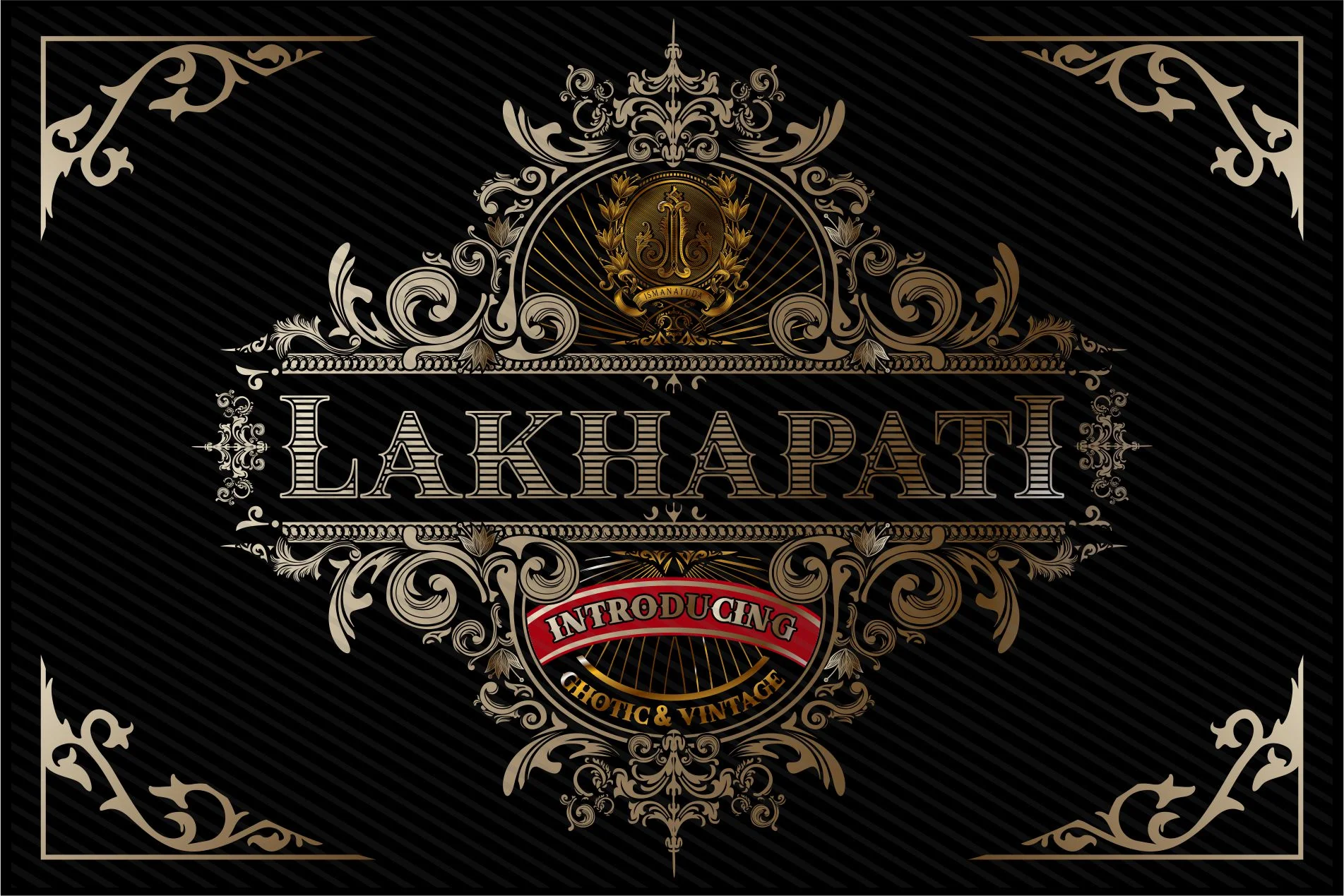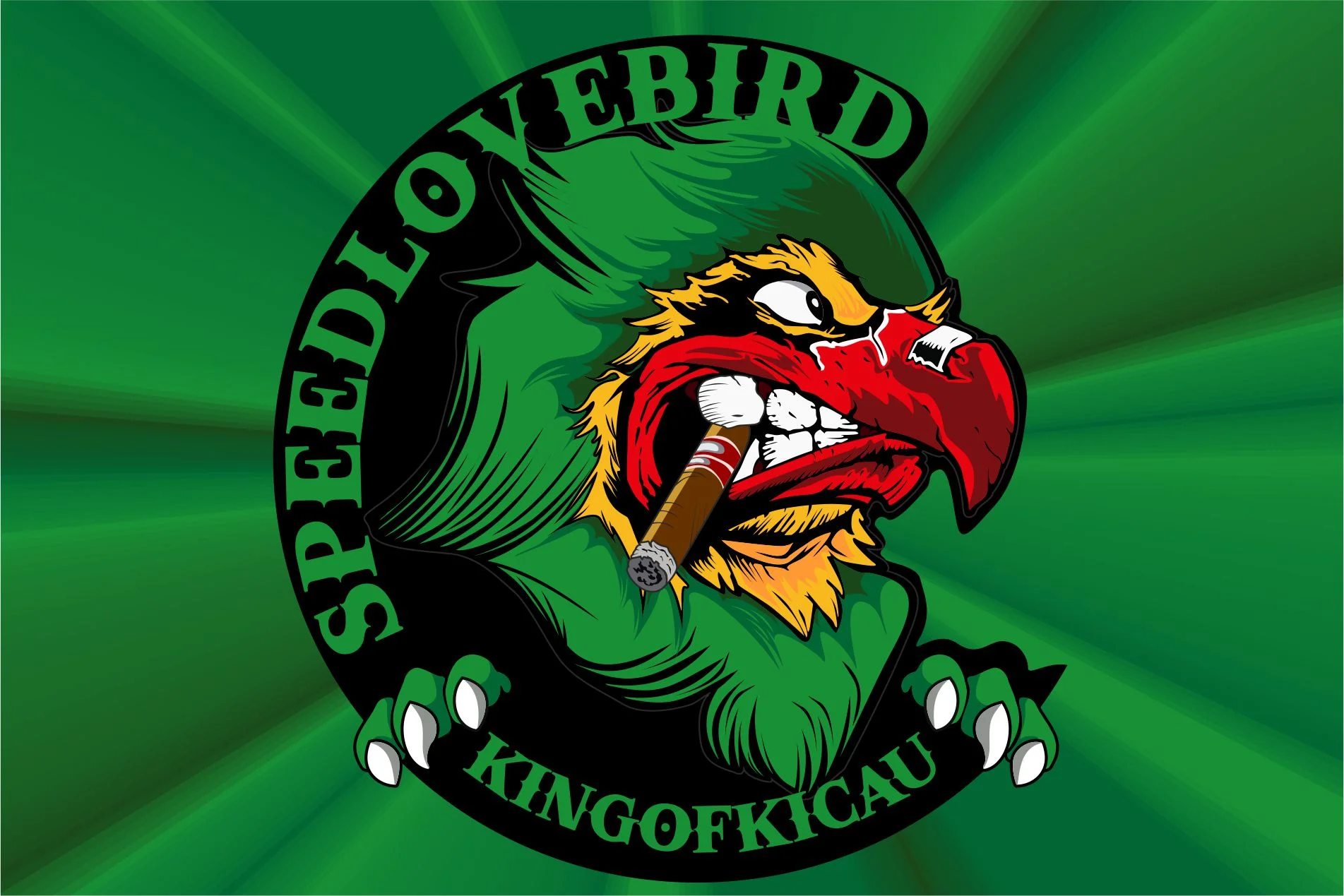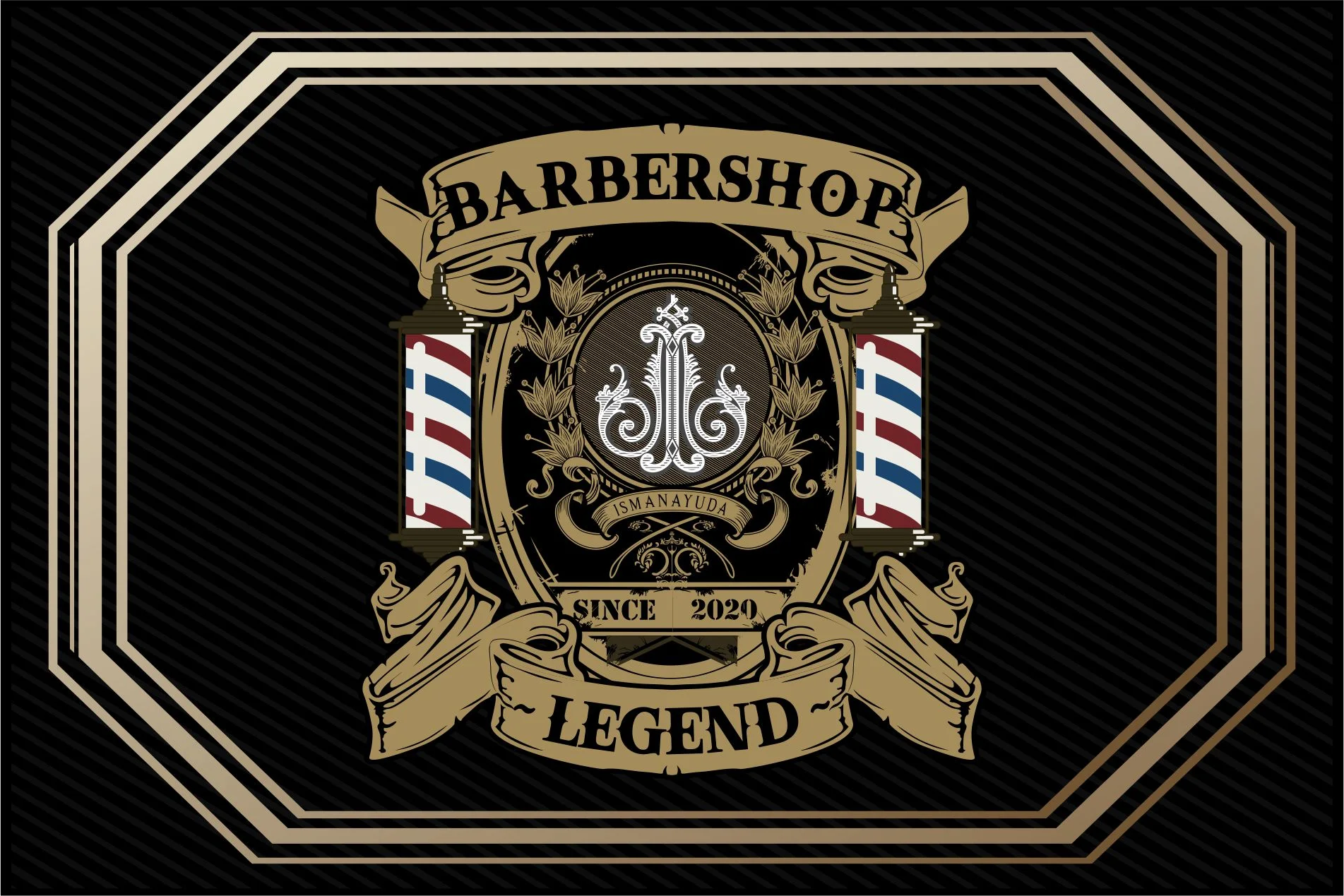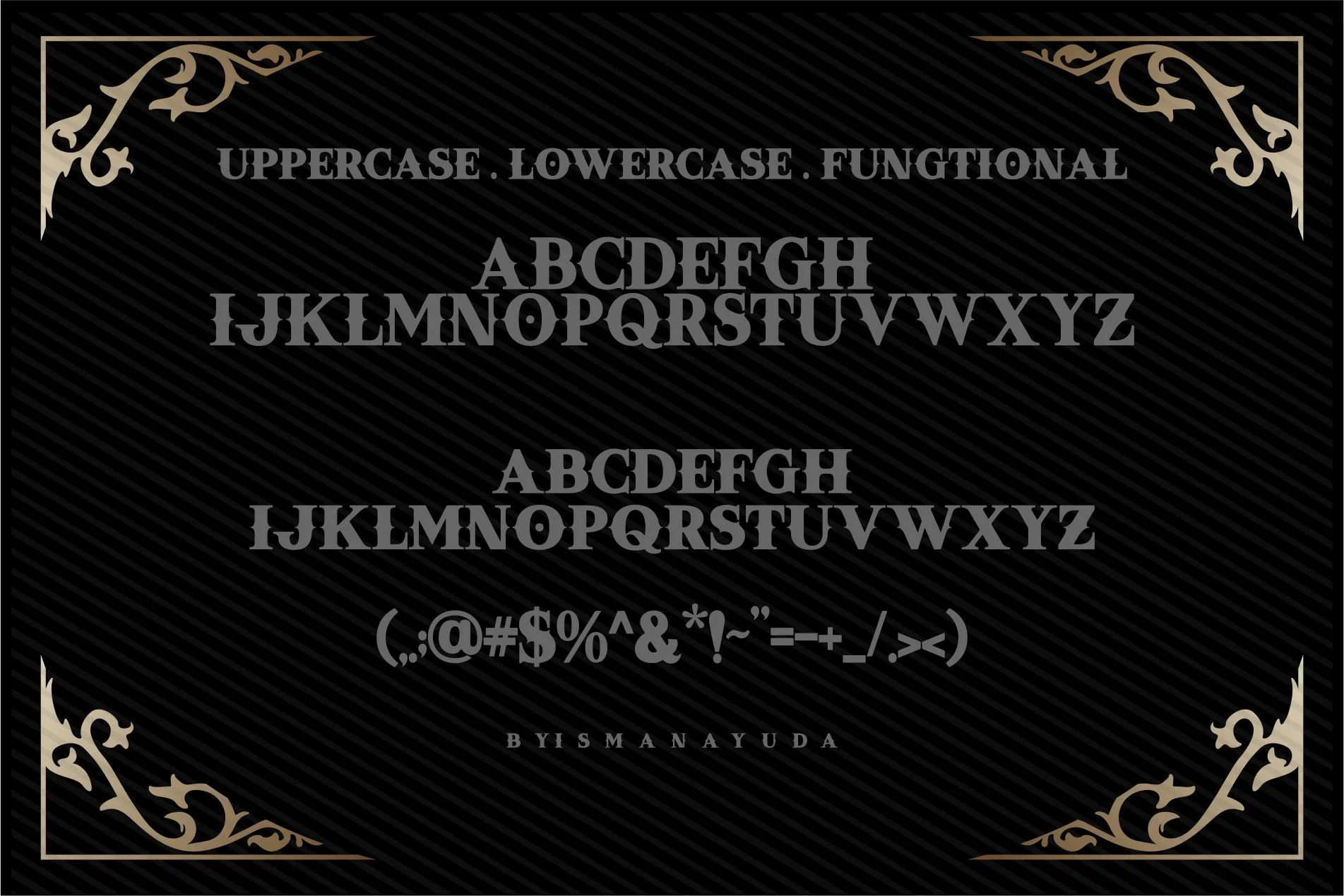
Lakhapati
Lakhapati is a bold, uniquely designed modern gothic font. It features an ornamental style characterized by high-contrast strokes, intricate serifs, and horizontal internal hatching within the letterforms. This design is heavily influenced by vintage Victorian aesthetics, making it ideal for high-impact branding such as luxury logos, period-style shop signage, and heritage-inspired apparel. The overall presentation in the image, with its gold-leaf effect and ornate filigree, highlights the font's intended use for "Gothic & Vintage" projects.